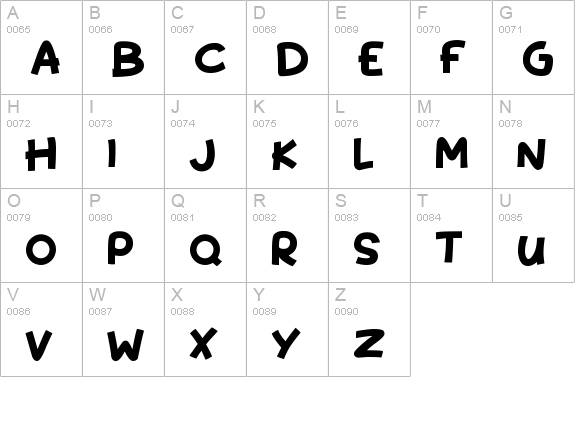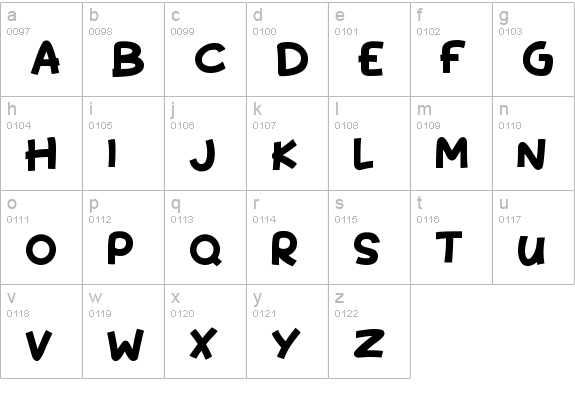
Kissy Hugs Font Details
Kissy Hugs is a donationware font in the Fancy > Comic category, designed by Darrell Flood. It has been downloaded 87 times and is available for Windows, Mac and Linux.
Kissy Hugs font is a charming and whimsical typeface that exudes warmth and friendliness. Its playful curls and sweet curves make it perfect for adding a touch of love and joy to your designs. Whether you're working on greeting cards, invitations, or branding projects, Kissy Hugs font will bring a smile to your audience's faces.